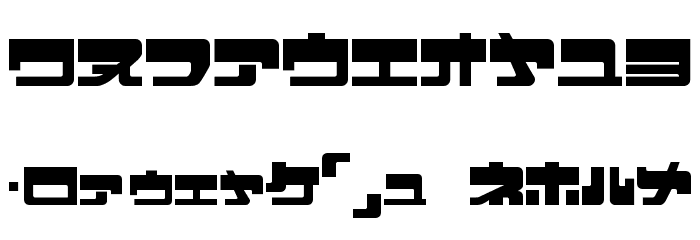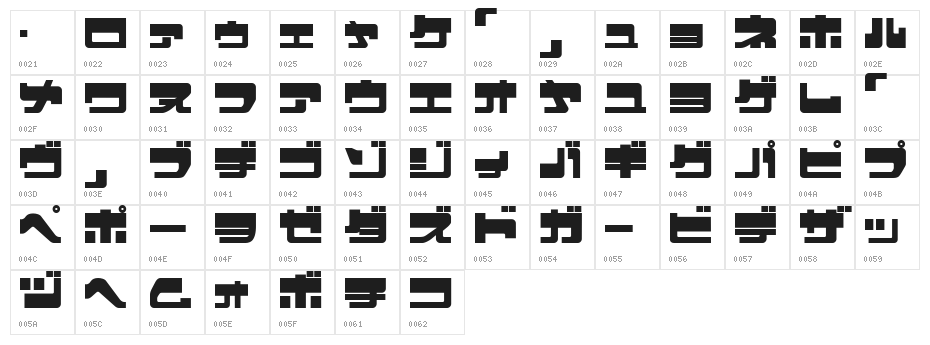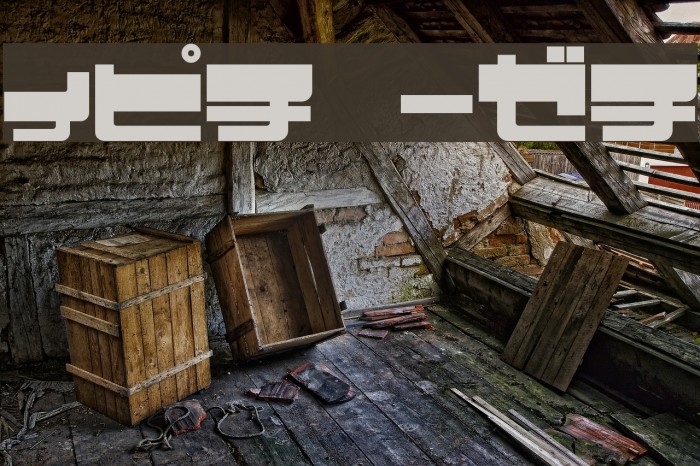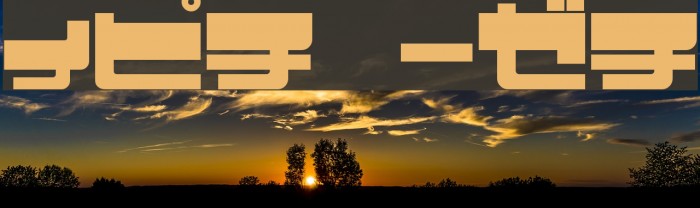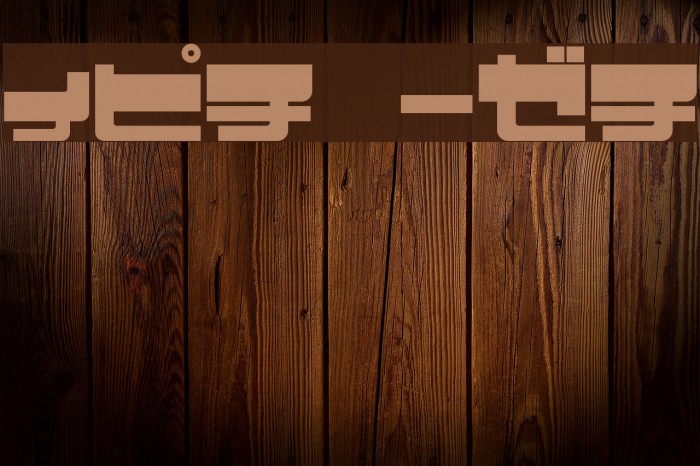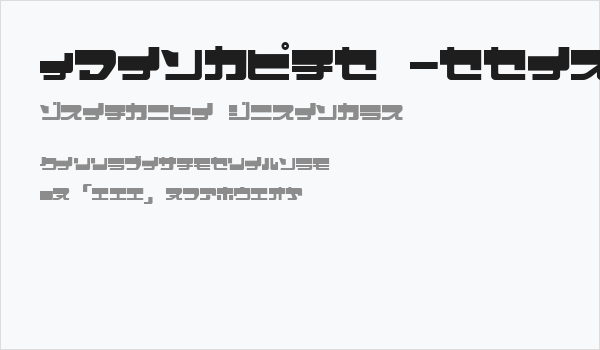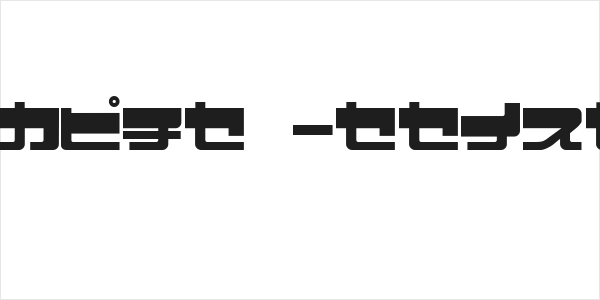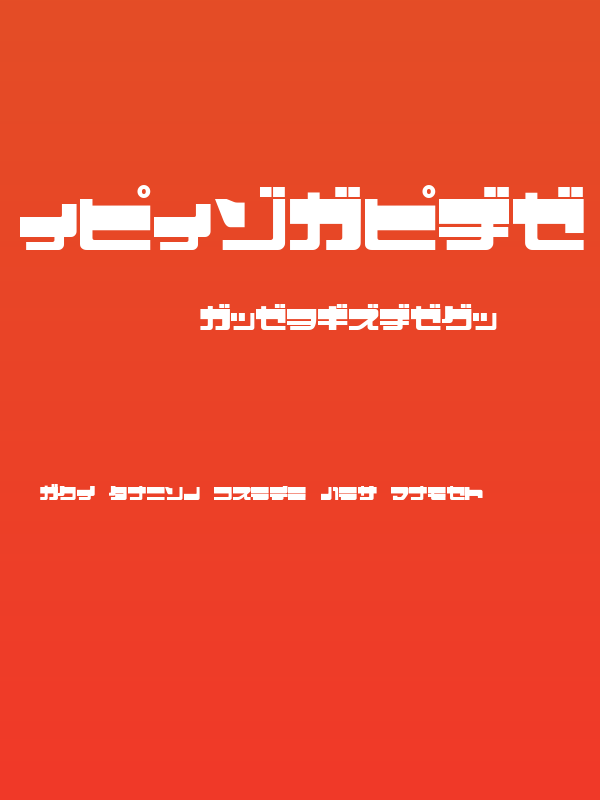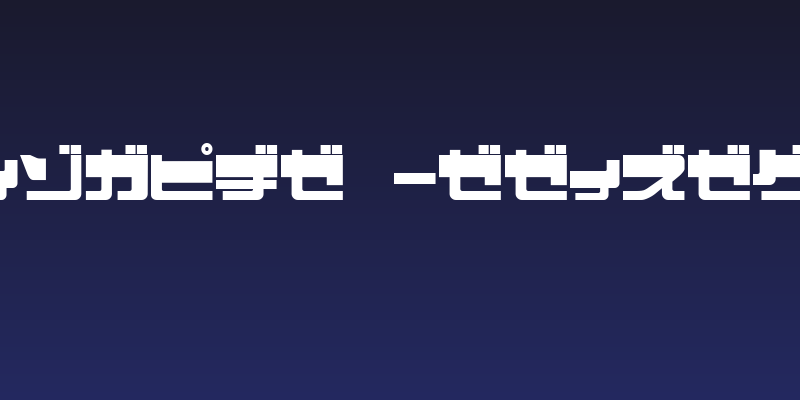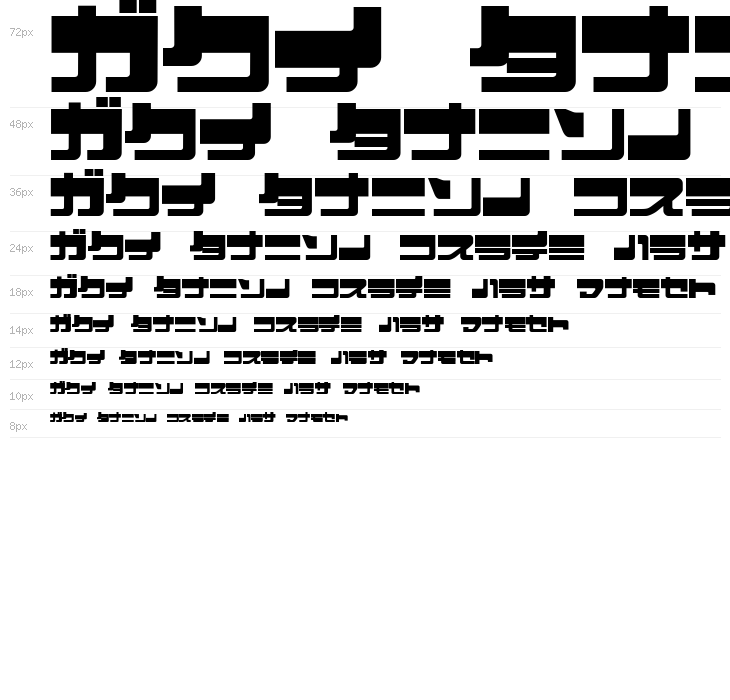
EjectJap UpperPhat Font
EjectJap UpperPhat Description
This font features a bold, geometric style with a strong presence. The characters are blocky and angular, giving it a futuristic and digital feel. The uniformity in stroke width across all characters contributes to a cohesive and structured appearance. The font is highly legible, with each letter distinctly separated, making it suitable for attention-grabbing headlines or titles. Its modern aesthetic is complemented by a slight retro touch, reminiscent of early digital typography. The font's design is both functional and visually striking, making it versatile for various creative applications.